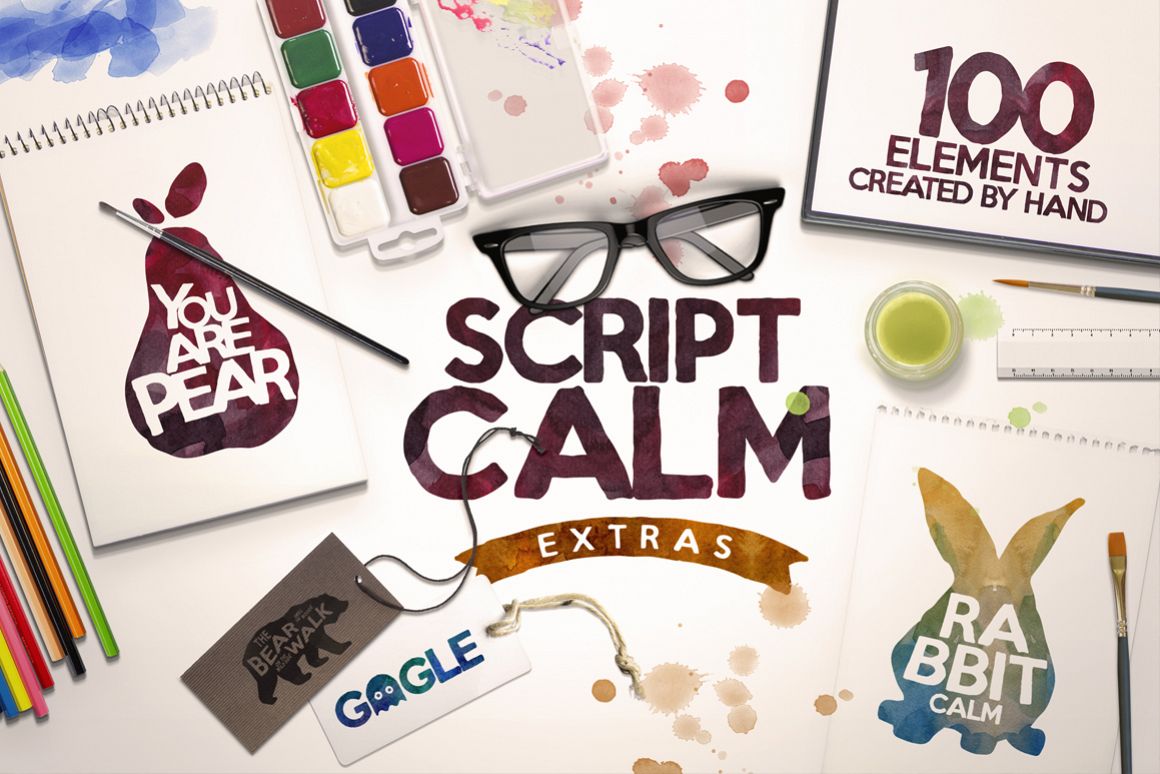
Script Calm 100 Elements Bonus
Script Calm is a handmade font family that comes with loads of extras that will give your designs an authentic hand-crafted feel. You will receive 100 bonus elements + 5 bonus logos.
All uppercase. All punctuation. All numbers.